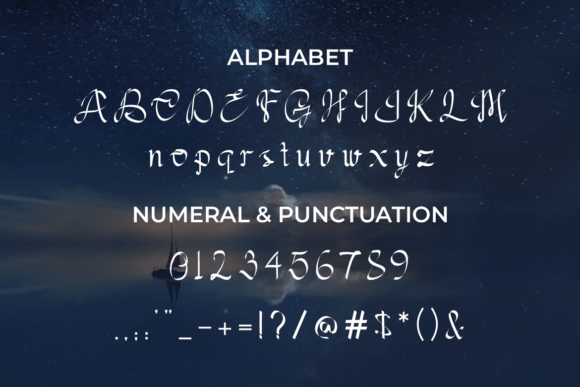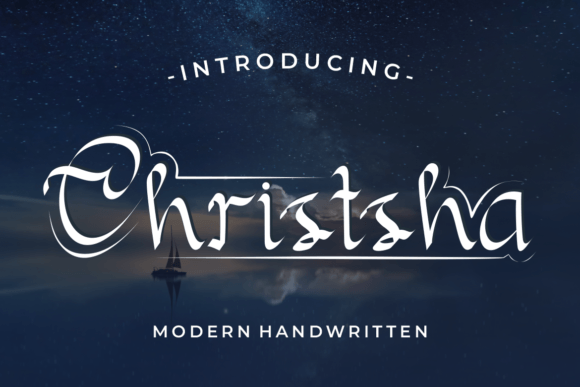
Introducing Christsha Font: The Ultimate Playful and Whimsical Handwritten Font
Are you tired of using the same old boring fonts in your designs? Look no further! Christsha Font is here to add a touch of fun and quirkiness to your creative projects. This handwritten font is perfect for designers and crafters who want to add a playful and whimsical touch to their work.
What Makes Christsha Font So Special?
Christsha Font is a unique and eye-catching handwritten font that is sure to make your designs stand out. Its playful and whimsical nature makes it perfect for a wide range of design ideas, from kids’ party invitations to social media graphics, and even branding and packaging designs.
Key Features of Christsha Font
• Handwritten and Quirky: Christsha Font has a unique, handwritten look that’s perfect for adding a personal touch to your designs.
• Playful and Whimsical: This font is sure to bring a smile to your audience’s faces with its fun and playful vibe.
• Highly Versatile: Christsha Font can be used for a wide range of design projects, from digital graphics to print materials.
• Easily Readable: Despite its playful nature, Christsha Font is still highly readable, making it perfect for body text and headings.
Use Cases for Christsha Font
Christsha Font is perfect for a variety of design projects, including:
• Kids’ Party Invitations: Add a playful touch to your kids’ party invitations with Christsha Font.
• Social Media Graphics: Use Christsha Font to create eye-catching social media graphics that are sure to grab your audience’s attention.
• Branding and Packaging: Add a touch of whimsy to your branding and packaging designs with Christsha Font.
• Digital Graphics: Use Christsha Font to create fun and playful digital graphics, such as blog headers and email newsletters.
Tips for Using Christsha Font
Here are a few tips for getting the most out of Christsha Font:
• Use it Sparingly: While Christsha Font is playful and fun, it can be overwhelming if used too much. Use it sparingly to add a touch of whimsy to your designs.
• Pair it with Other Fonts: Christsha Font pairs well with other fonts, such as sans-serif fonts and script fonts. Experiment with different pairings to find the perfect combination.
• Experiment with Colors: Christsha Font looks great in a variety of colors, from bright and bold to pastel and soft. Experiment with different colors to find the perfect look for your design.
Whether you’re a seasoned designer or just starting out, Christsha Font is a great addition to your font collection. Its unique and eye-catching design is sure to make your designs stand out, and its versatility makes it perfect for a wide range of design projects. So go ahead, get creative, and have fun with Christsha Font!